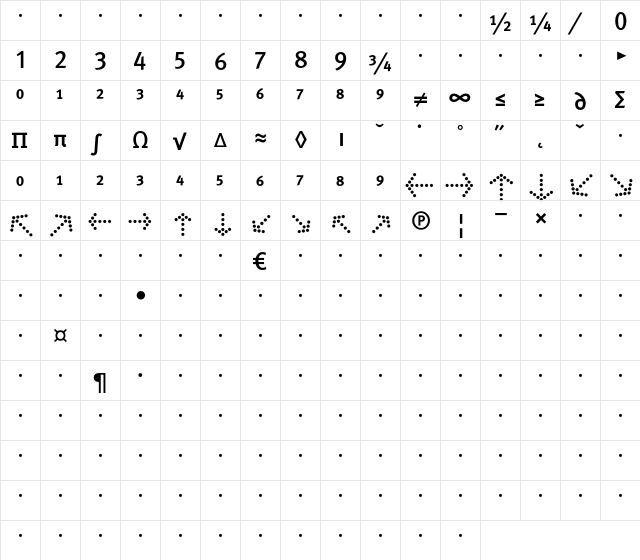
MetaMediumCyr-CapsExpert Regular
Design Context for MetaMediumCyr-CapsExpert Typeface
MetaMediumCyr-CapsExpert is a composed and adaptable typeface that performs quietly and consistently across a wide range of design contexts.